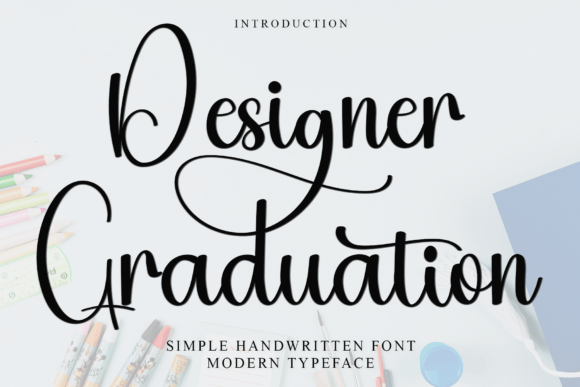
The Perfect Touch of Elegance: Designer Graduation Font
Have you ever found yourself rummaging through your stash of fonts, searching for that one special script that would elevate your design from ordinary to extraordinary? I know I have. And then, it hits you – the perfect font that adds a touch of whimsy, sophistication, and elegance to your creation. For designers, this moment is a game-changer.
Enter Designer Graduation Font, a stunning and highly versatile script font that’s perfect for any design project that requires a handwritten touch. From wedding invitations to thank you cards, quotes, and logos, this elegant font adds a level of sophistication and refinement that’s hard to find in other fonts.
Designer Graduation Font Key Features
- Unique Characteristics: Custom-designed with a celebratory feel, featuring intricate details and ornaments
- Character Set: Includes a wide range of characters, including Latin, Cyrillic, and Greek alphabets
Designer Graduation Font Review
When I first laid eyes on the Designer Graduation Font, I was immediately drawn in by its playful and celebratory vibe ✨. The font’s use of bold lines, bright colors, and whimsical flourishes screams ‘graduation party’ – and that’s exactly what it’s designed for.
The font is incredibly versatile and can be used for a variety of graduation-related designs, from posters and invitations to certificates and social media graphics ✨. The font’s size and style can be easily adjusted to suit different design needs, making it a great addition to any designer’s toolkit.
Here are some of the font’s key strengths:
- Perfect for graduation-themed designs
- Great for social media and online graphics
- Can be easily paired with other fonts
- May not be suitable for formal or professional designs
- Can be a bit too playful for some tastes
- May not be as polished as some other fonts on the market
Overall, I think the Designer Graduation Font is a great choice for designers looking to create fun and celebratory graduation-themed designs. While it may not be suitable for every project, it’s definitely a great addition to any designer’s toolkit ✨.
The Designer Graduation Font is perfect for creating eye-catching graduation announcements, certificates, and invitations. To get the most out of it, experiment with different font sizes, colors, and combinations. You can also use it to add a personal touch to your graduation party decorations, photo albums, and social media posts.